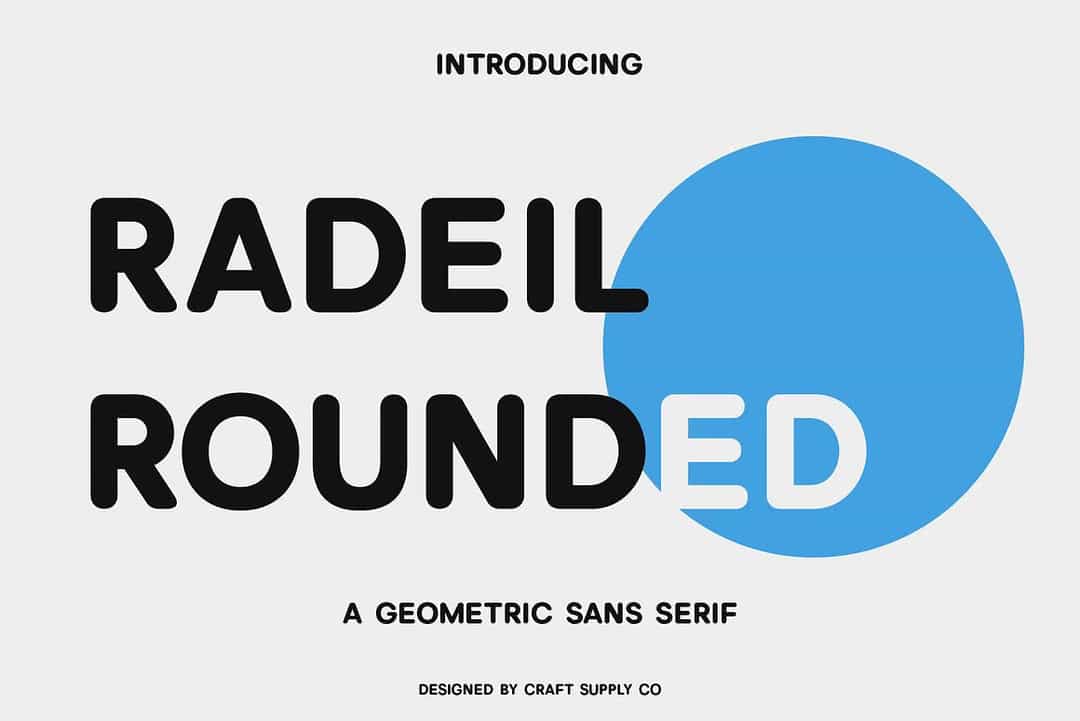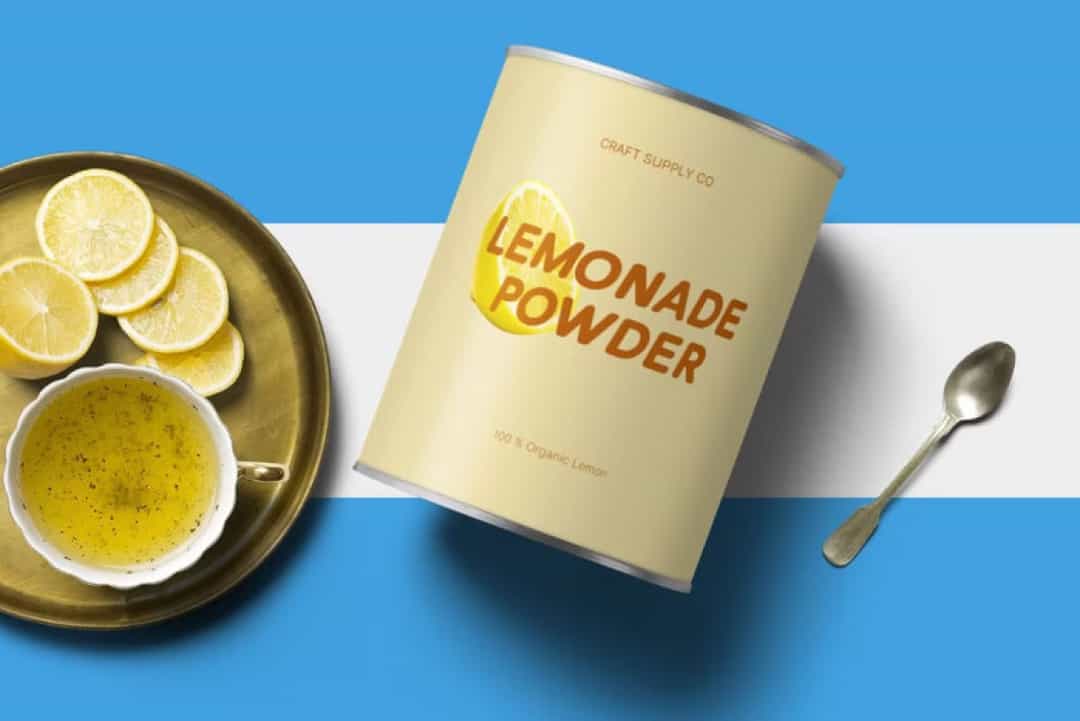
Radeil Rounded offers an economical and gentle font solution. With low contrast sans serif rounded text, its gentle curves and friendly design invite users to interact naturally with content they encounter online. Flexible Usage This font was specifically created with flexibility in mind. It can adapt easily to various design and development applications ranging from branding designs, user experience designs and editorial work; providing warmth and accessibility.